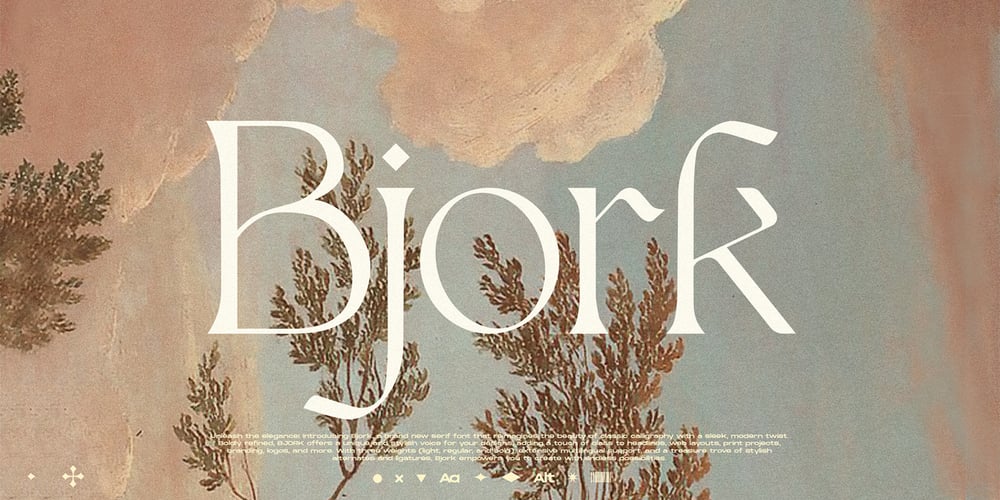
CCS Bjork Font Family was designed by Kurt Harahap and published by Creative Corner Studio. CCS Bjork contains 3 styles and family package options. Unleash the elegance! Introducing Bjork, a brand new serif font that reimagines the beauty of classic calligraphy with a sleek, modern twist. Boldly refined, Bjork Serif offers a unique and stylish voice for your designs, adding a touch of class to headlines, web layouts, print projects, branding, logos, and more. With three weights (light, regular, and bold), extensive multilingual support, and a treasure trove of stylish alternates and ligatures, Bjork empowers you to create with endless possibilities.